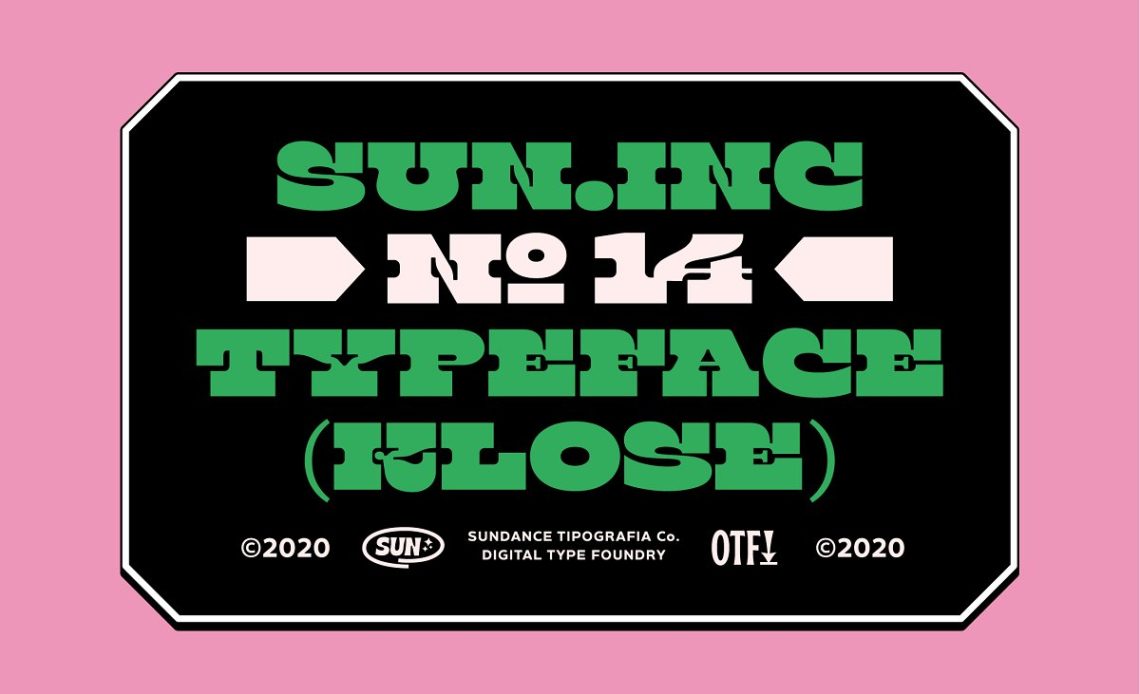
Introducing the game-changing Klose Slab Font Family, another vintage masterpiece created by Studio Sun* (SUN014) exclusively for your Fonts collection. With a tempting offer of 50% off, now is the perfect time to enhance your font library with this remarkable addition.
Klose Slab boasts four incredible styles: condensed, normal, semi-expanded, and expanded. Its versatility knows no bounds, making it the ideal choice for a wide range of creative projects. Whether you're designing a striking logotype, captivating headlines, or eye-catching display text, Klose Slab will effortlessly elevate your designs to new heights.
But what sets Klose Slab apart from the rest? Its innovative Variable Font format allows you to customize the widths according to your specific needs. This groundbreaking feature empowers you to experiment with different visual compositions, ensuring your designs are truly one-of-a-kind. Say goodbye to limitations and embrace the freedom of customization with Klose Slab.
Do you often find yourself in need of fonts that support multiple languages? Look no further! Klose Slab has got you covered with its extensive support for over 75 languages, including Latin pro. Now you can effortlessly communicate your message to a global audience without compromising on style or legibility.
Immerse yourself in the timeless charm and elegance of Klose Slab. Its vintage aesthetic adds a touch of sophistication to any project, making it the go-to choice for designers who crave a classic yet contemporary look. Allow your creativity to flourish as you explore the countless possibilities this font family has to offer.